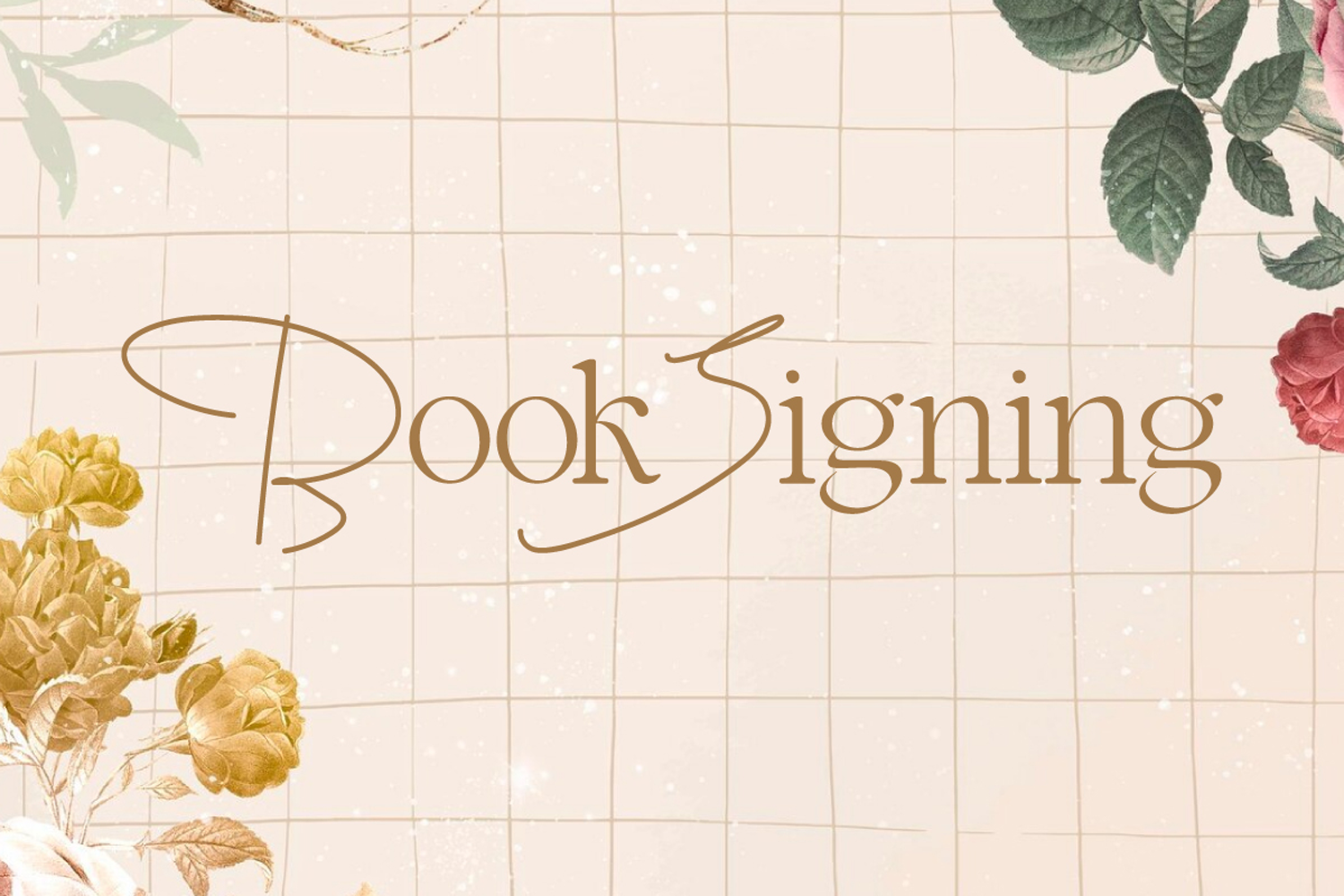
Book Signing
Book Signing Font is a luxurious display font from a blend of signature and serif styles. This perfect harmony presents a unique and impressive font. Keep your designs minimalist with a distinctive style using this font! Ideal for apps, blogs, branding, cover, headers, headline, invitation cards, labels, logos, packaging, poster, stickers, template, website, etc.
Book Signing Font comes with a complete set of Uppercase and Lowercase Basic Characters, Numbers, Punctuation, and Symbols. This font strikes a perfect balance between elegance and simplicity, not only that, this typeface is carefully crafted to ensure its premium quality and luxurious feel. Perfect for use in advertising, cosmetic, event organizer, home furniture, interior design, skincare, wedding, and many more.